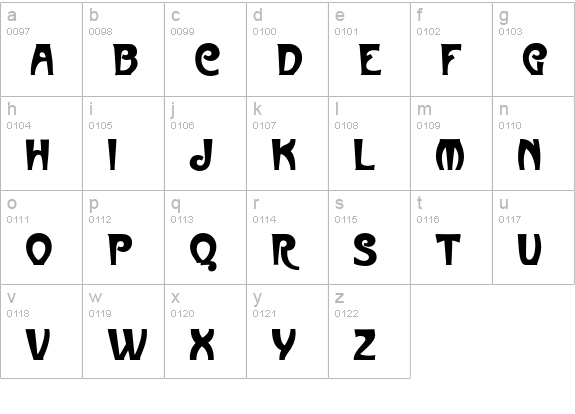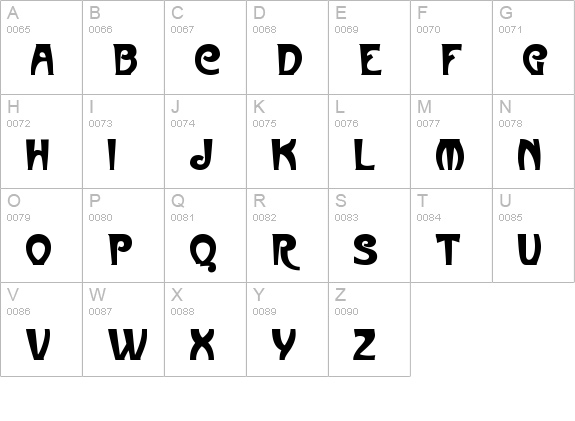
Metropolitaines Font Details
Metropolitaines font is a modern and stylish typeface that exudes sophistication and elegance. With its clean lines and sleek design, this font is perfect for adding a touch of class to any project. Whether you're creating a logo, designing a website, or working on a branding project, Metropolitaines font is sure to make a bold statement. What sets Metropolitaines font apart is not only its stunning aesthetics but also the fact that it is completely free to download. That's right, you can elevate your designs with this exquisite font without spending a dime. Simply head over to FontsMarket.com to get your hands on this versatile typeface and start incorporating it into your projects today. From business cards to posters, from social media graphics to packaging design, Metropolitaines font will elevate your creations and leave a lasting impression on your audience. So why wait? Download Metropolitaines font now and take your design game to the next level.